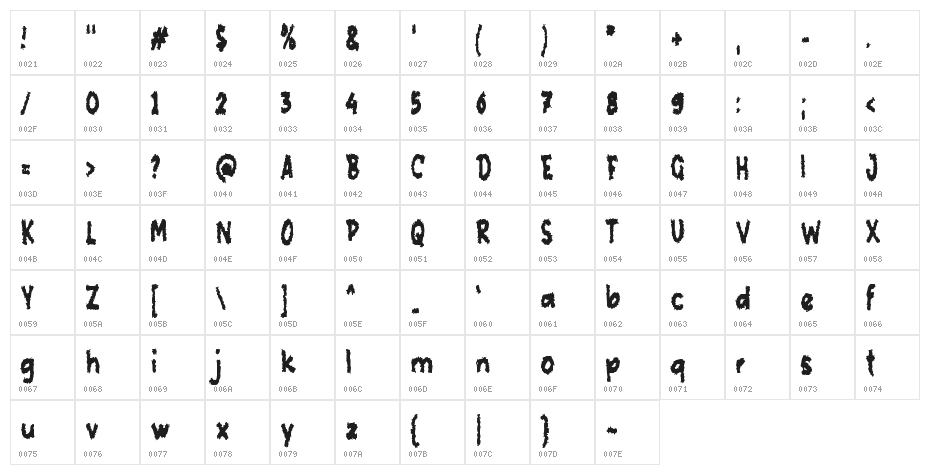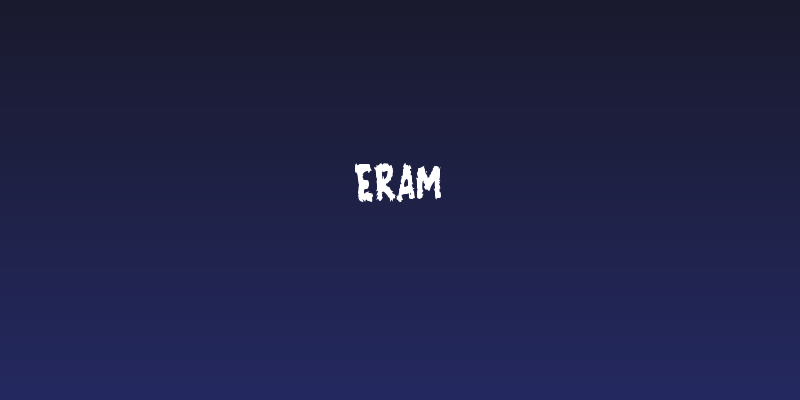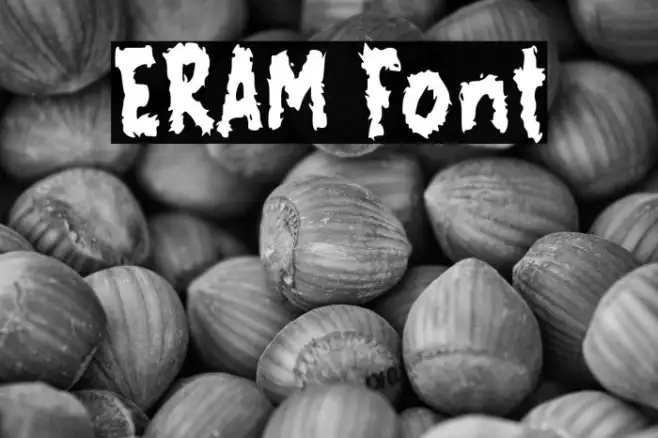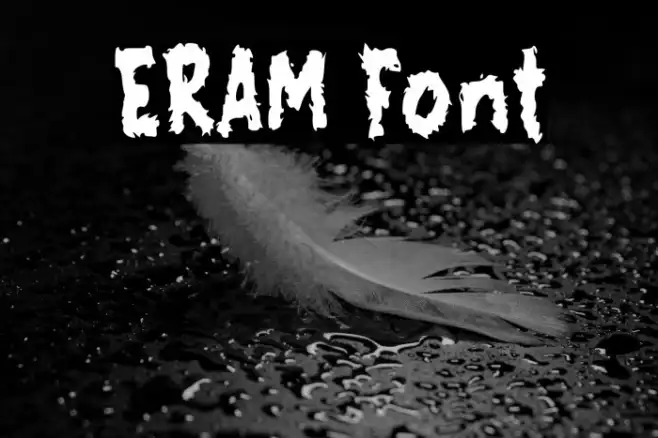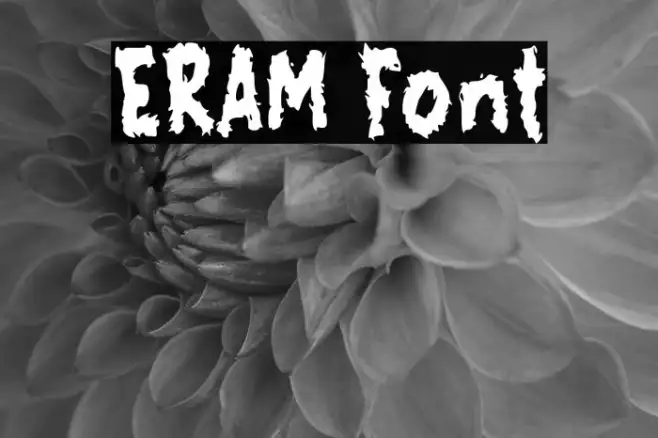
ERAM Font
ERAM Description
This font features a bold, jagged design that gives it a rugged and distressed appearance. The characters are irregularly shaped, with rough edges that create a sense of movement and energy. This style is reminiscent of hand-cut or torn paper, adding a dynamic and edgy feel to the text. The uppercase and lowercase letters maintain a consistent style, while the numbers and special characters complement the overall aesthetic. The font's unique texture and boldness make it stand out, ideal for projects that require a strong visual impact.
| Proposed Projects | Ideal for horror-themed posters, edgy branding, album covers, and creative art projects. |